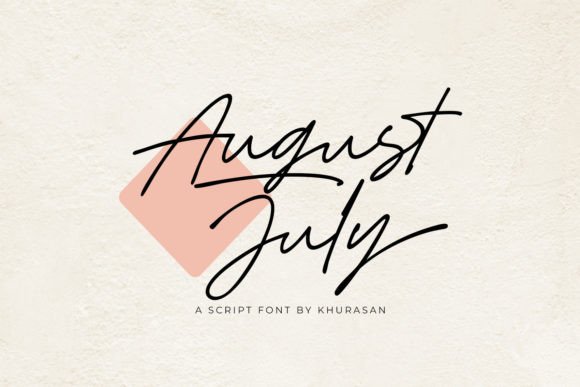
Introducing August July, the epitome of modern elegance in script font design. Crafted by the expert Khurasan, this versatile font is perfect for all your creative needs!
August July will transform your designs into masterpieces, whether it's for a poster, logo, magazine, book cover, or banner. Its beauty is undeniable and its charm is irresistible.
PUA encoded for easy access to all glyphs and swashes, August July is your ticket to stunning and unique designs. With its captivating curves and graceful strokes, you'll be able to bring your ideas to life like never before.
Embodying a perfect combination of style and professionalism, August July will make your designs stand out in a crowd. It's a font that speaks for itself, making it the perfect choice for all types of projects.